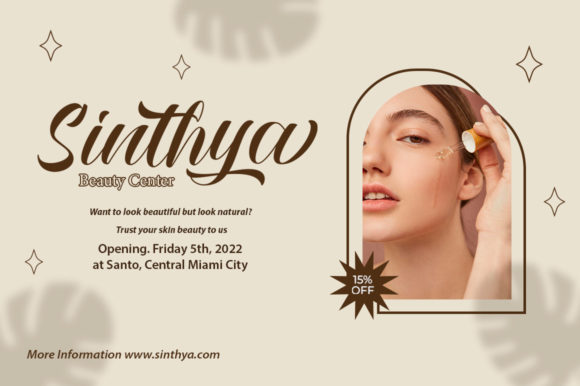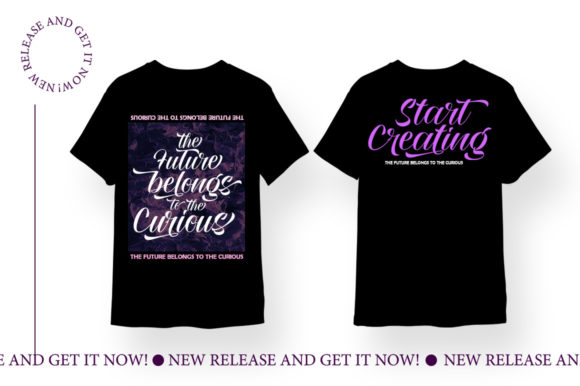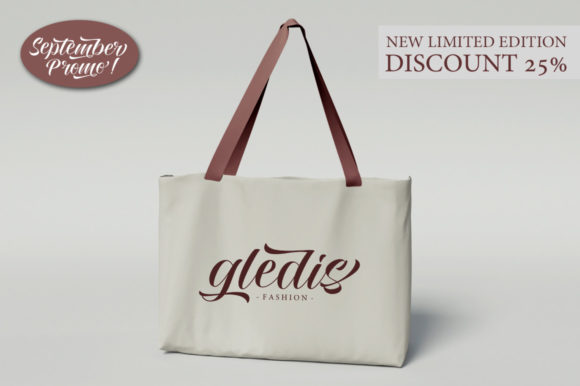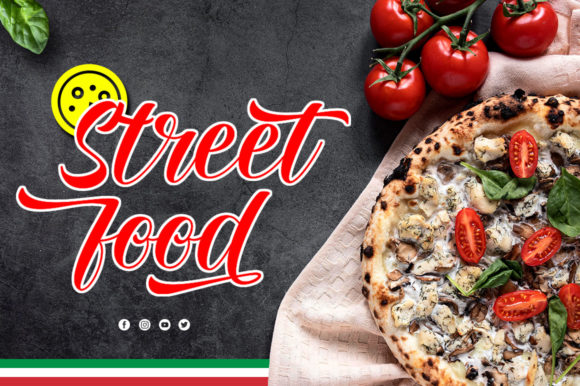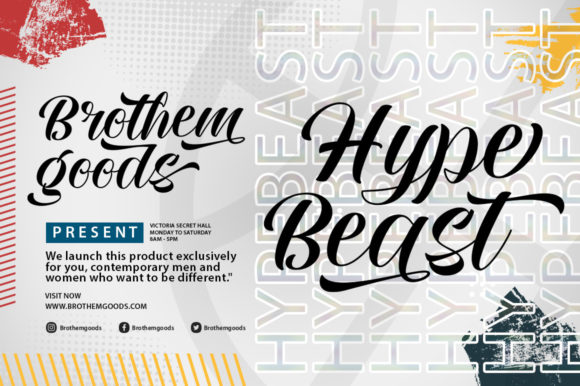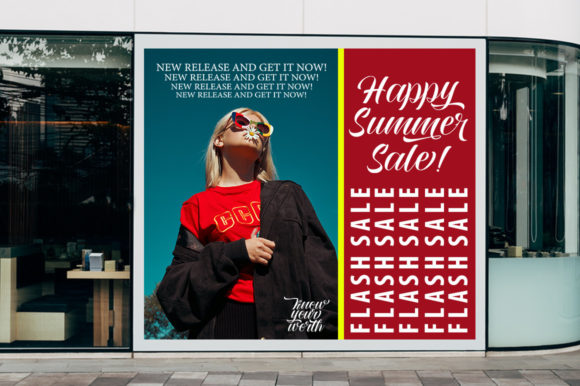
The Perfect Touch of Whimsy: Unlocking the Magic of Bailey Rogles Font
There’s something special about scribbling down a heartfelt message to a loved one – the way the pen glides across the paper, leaving a trail of imperfections and personality. It’s this exact feeling that Bailey Rogles Font captures, transporting your designs from generic to gorgeous. This charming handwritten font is a must-have for any creative project, from wedding invitations to thank you cards, quotes, and logos.
As a designer, you understand the importance of adding a touch of uniqueness to your work. Bailey Rogles Font offers exactly that, with its flowing lines and elegant curves. Plus, its PUA encoding makes it easy to access all the glyphs and swashes you need, giving you complete control over your design. Whether you’re looking to add a customized touch to a business card or create a stunning logo, Bailey Rogles Font is an invaluable tool in your design arsenal.
Bailey Rogles Font Key Features
- Font Family: Bailey Rogles Font is a script font, ideal for formal and informal writing, with a unique, elegant feel.
- Unique Characteristics: Features a flowing, handwritten style with subtle flourishes, making it perfect for adding a personal touch to designs.
Bailey Rogles Font Review
Overall, I think the Bailey Rogles font is a unique and stylish choice for any design project. ✨ Its organic feel and subtle imperfections give it a handcrafted look that can add character to your work. The font is perfect for creating a vintage or rustic vibe in your designs, and it pairs well with a variety of color schemes.
Some of the strengths of the Bailey Rogles font include:
- ✨ Its distinctive, handwritten feel that can add a personal touch to your designs
- ✨ The font’s versatility, making it suitable for a wide range of design projects, from branding to editorial work
- ✨ The high-quality, clear glyphs that ensure readability, even at smaller font sizes
- ⚠️ The font may not be suitable for projects that require a clean, modern aesthetic
- ⚠️ The font’s imperfections can sometimes make it difficult to read, especially in large blocks of text
- ⚠️ The font may not be compatible with all operating systems or software, which can lead to display issues
Overall, I think the Bailey Rogles font is a great choice for designers who want to add a unique touch to their work. While it may have some limitations, its strengths far outweigh its weaknesses, making it a valuable addition to any design toolkit.
The Bailey Rogles
Comparison to Bailey Rogles Font: Great Vibes has a more refined, cursive feel compared to Bailey Rogles, which is more playful and handwritten. Great Vibes is better suited for formal events and high-end branding, while Bailey Rogles is great for casual, friendly designs.